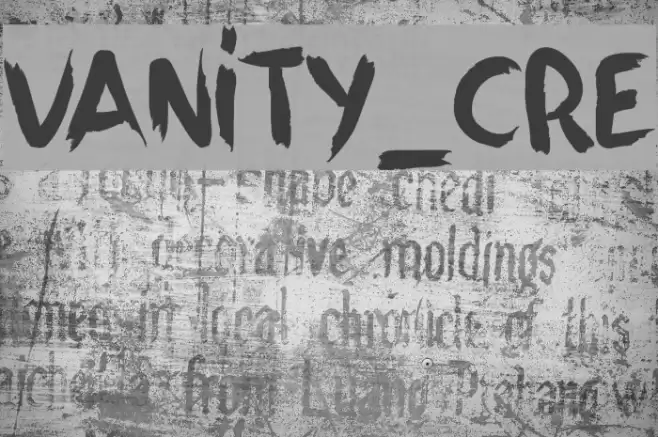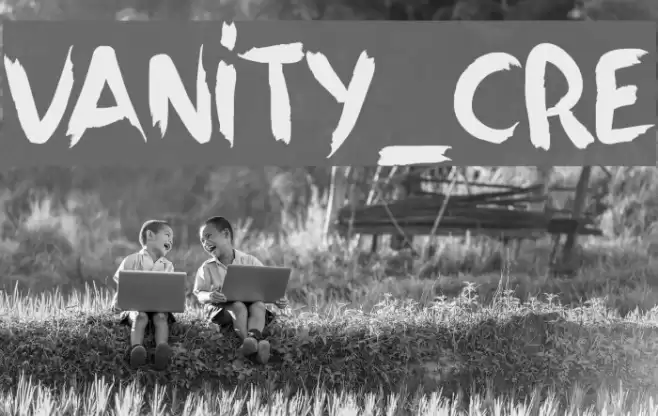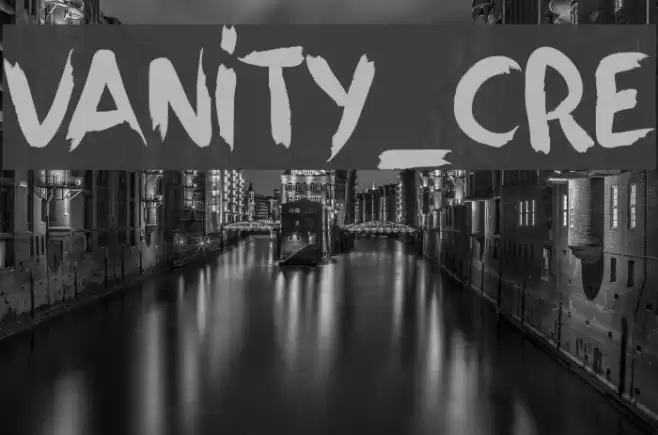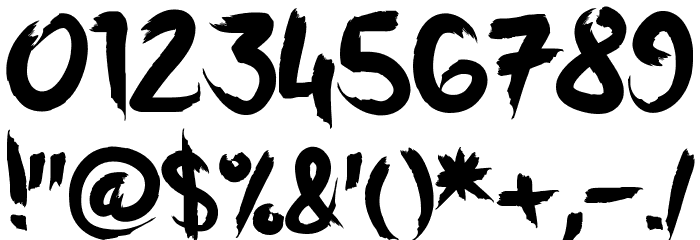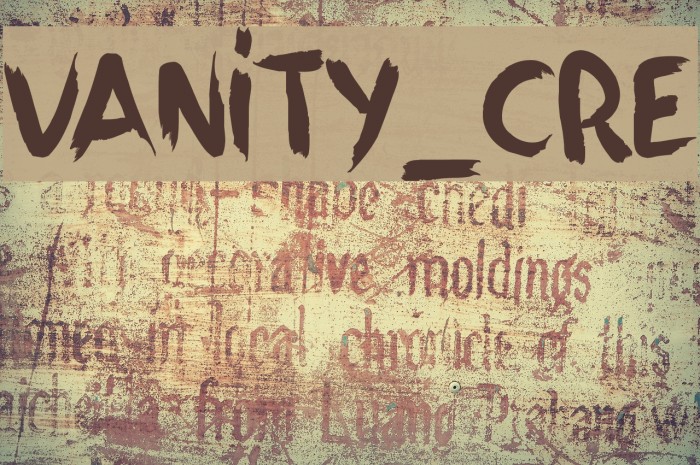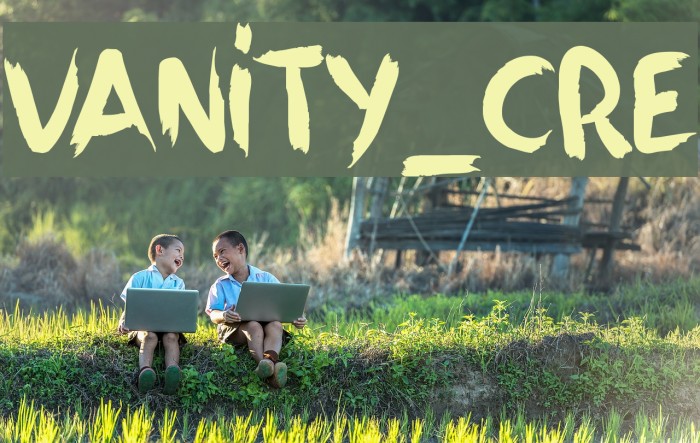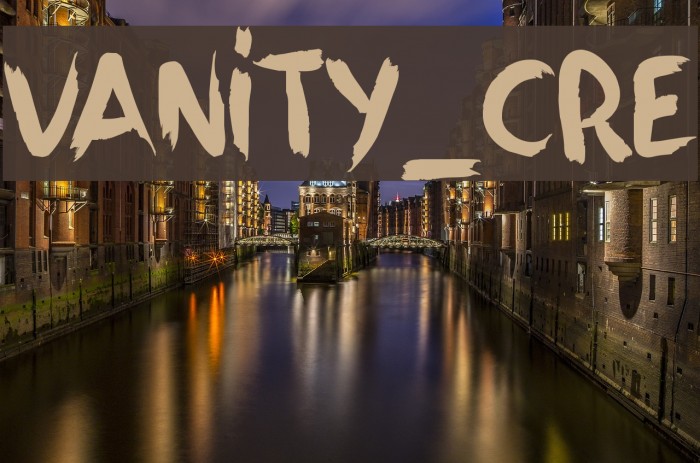
VANITY_CRE Font
VANITY_CRE Description
This font features a bold and dynamic brushstroke style, characterized by its energetic and slightly chaotic appearance. The letters have a hand-painted look, with varying thicknesses and sharp, pointed edges that give it a raw and expressive feel. The uppercase and lowercase letters maintain a consistent style, while the numbers and special characters complement the overall aesthetic. The font's unique design makes it stand out, capturing attention with its artistic flair. It is ideal for projects that require a touch of creativity and boldness.
A bold, brushstroke-style font with an energetic and expressive design from Uncategorized fonts.
- Proposed Projects: Ideal for posters, album covers, branding, and any creative projects that require a bold and artistic touch.
- Overall Style: Modern, Artistic